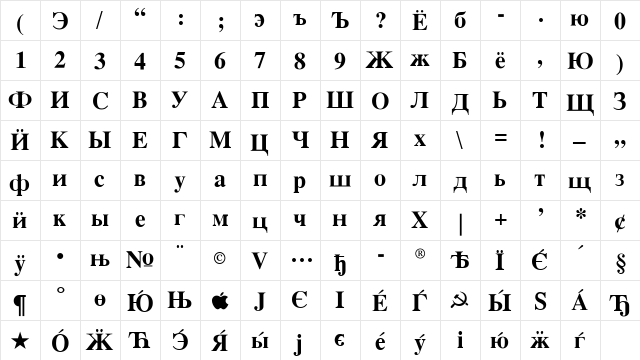
VremyaFLF-Bold Regular Font Preview
VremyaFLF-Bold Regular
VremyaFLF-Bold Regular Font Details
Design Context for VremyaFLF-Bold Typeface
VremyaFLF-Bold offers clean, dependable letterforms without strong stylistic allegiance, making it a practical choice for designers who need flexibility. Its bold stroke weight gives it real presence on the page.